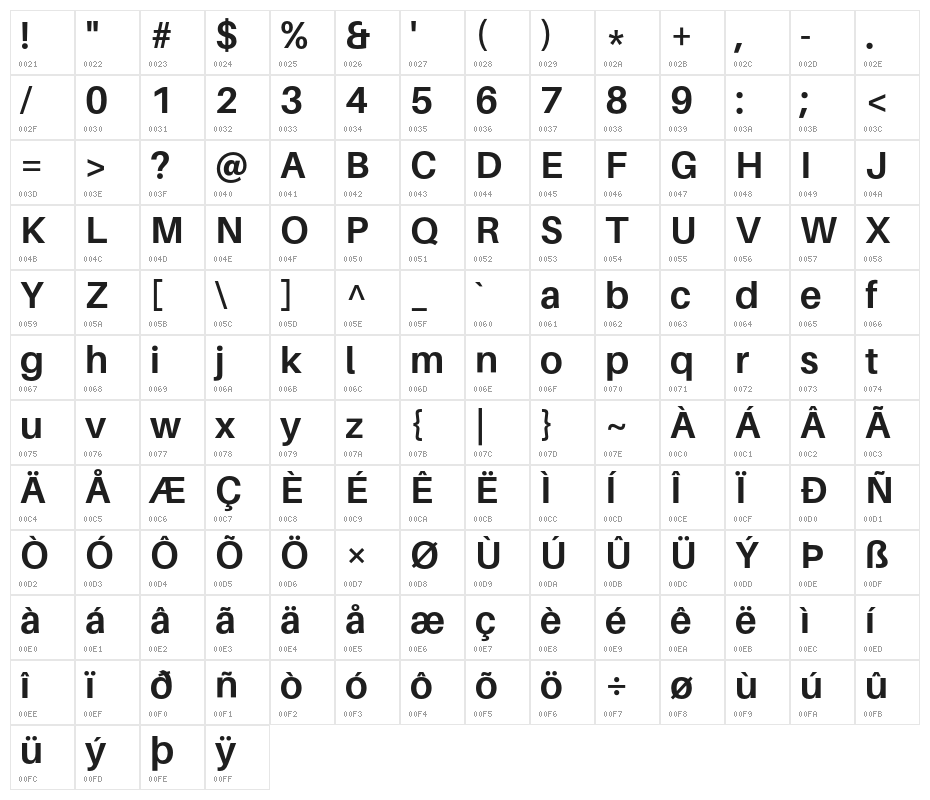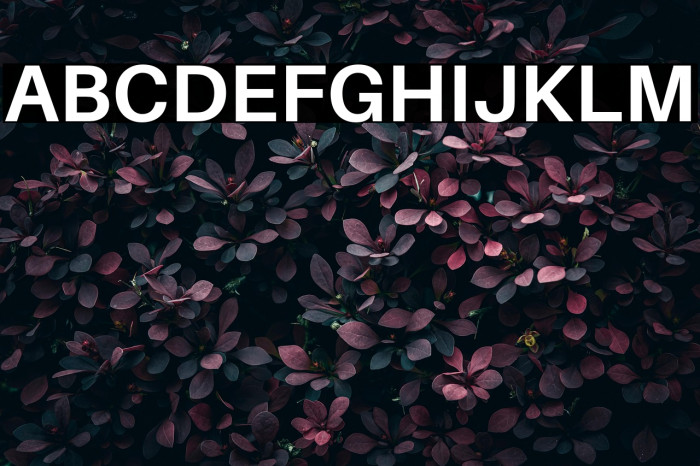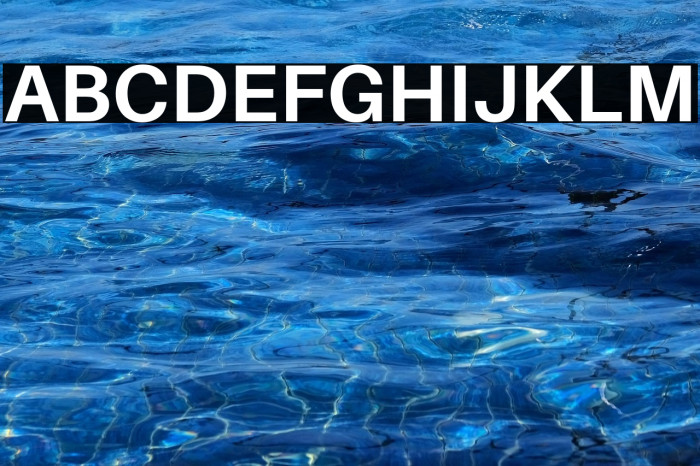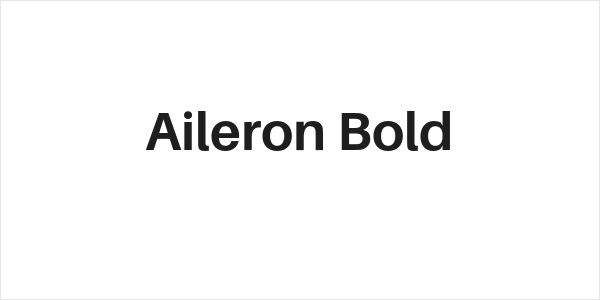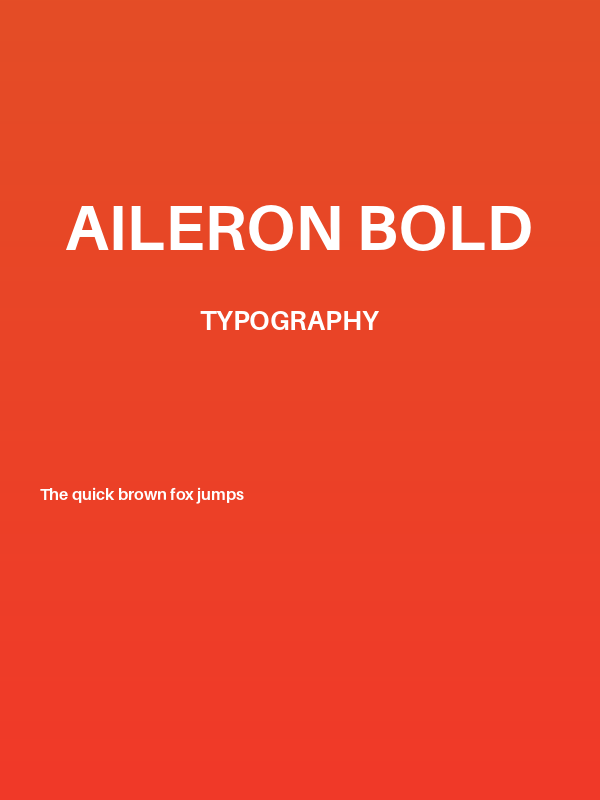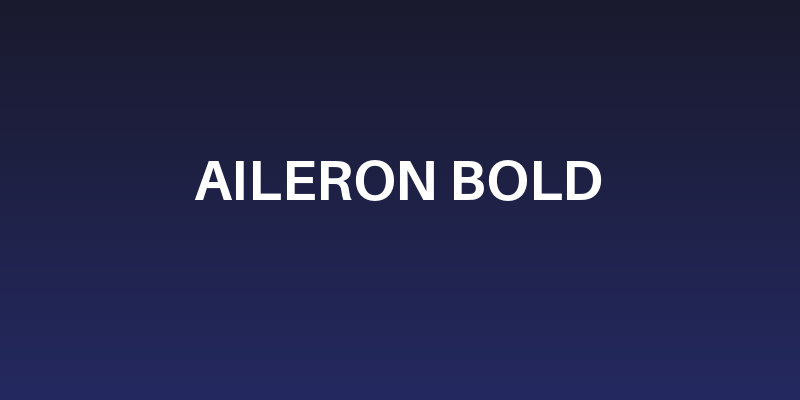
Aileron Bold Font
Aileron Bold Description
This font features a clean and modern sans-serif design with a bold weight, making it highly legible and impactful. The characters are evenly spaced with a normal width, providing a balanced and harmonious appearance. The uppercase and lowercase letters are well-proportioned, and the numerals are clear and distinct. The special characters are designed to complement the overall style, ensuring consistency across different uses. The font's simplicity and clarity make it versatile for various applications, from digital to print media.
| Use Case | Headlines, Logos, Digital interfaces |
| Proposed Projects | Ideal for branding, advertising, headlines, and digital interfaces where clarity and impact are essential. |